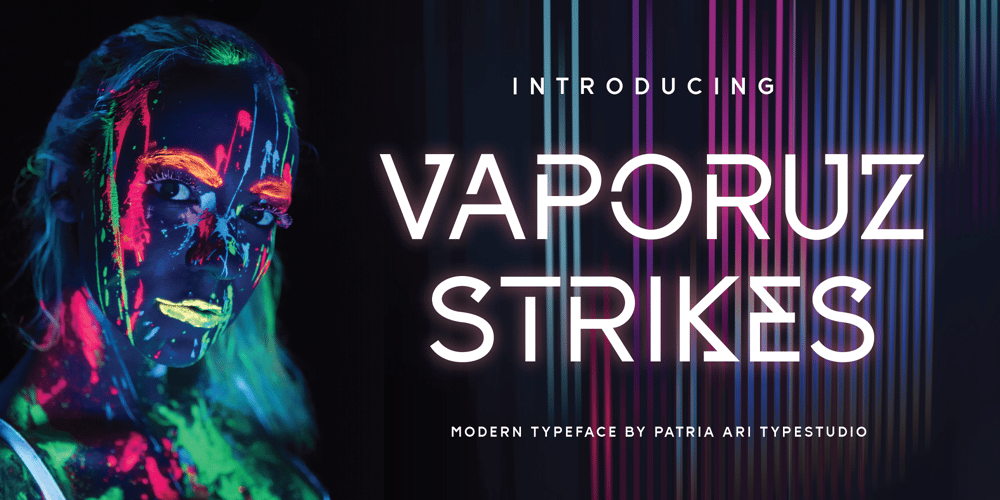
Vaporuz Strikes
Vaporuz Strikes Font Family was designed by Patria Ari Wijonarko and published by Patria Ari. Vaporuz Strikes contains 1 styles and family package options. Vaporuz Strikes is more than just a typeface; it’s a dynamic fusion of futuristic cyber technology and the bold, distinctive appeal of stencil design. This remarkable font is your key to crafting impactful headlines of all sizes, as well as making waves in editorial design, branding, packaging, logos, and more.